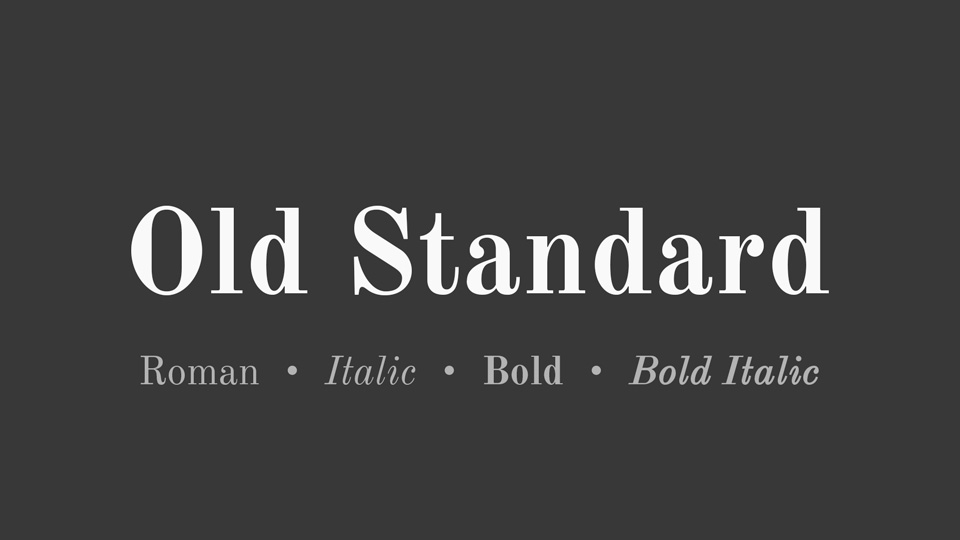
Download Old Standard typeface, a serif font family for classical and medieval studies. Old Standard is a remarkable creation of Alexey Kryukov, inspired by a typeface most commonly used in books printed in the late XIX and early XX century.